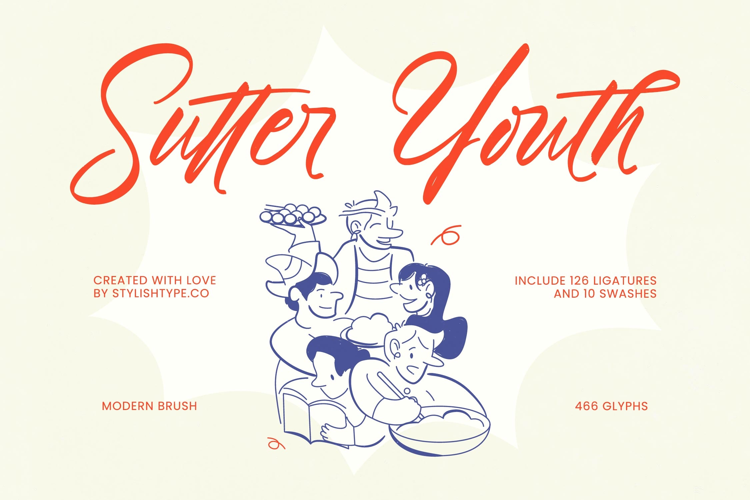
Sutter Youth - Modern Brush Font
Sutter Youth
Sutter Youth Italic
Inject immediate personality and dynamism into your design portfolio with Sutter Youth - Modern Brush Font. This vibrant, handcrafted script captures the authentic spontaneity of a rapid brushstroke, delivering a bold, fluid energy perfect for attention-grabbing headers and compelling display text. Its inherent movement and high-contrast styling ensure your message is communicated with impactful confidence and youthful exuberance, making it an essential tool for designers seeking a truly expressive and contemporary display face.